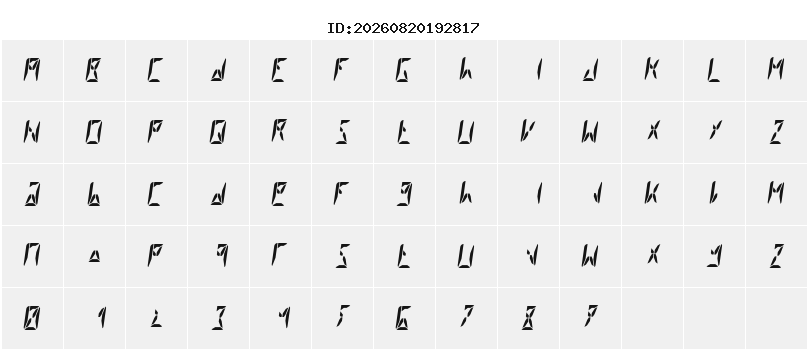
• Font Name: Segment8
• Full Font Name: Segment8 Bold Italic
• Designer: Daniel Wikholm
• Description: Segment8 Regular, Bold, Italic and Bold-Italic are 8-segment alphanumeric fonts that kind-of supports Windows-1252 (a lot is gibberish). Segment8.txt describes the combining characters 39, 46, 134-37 and 149-52.